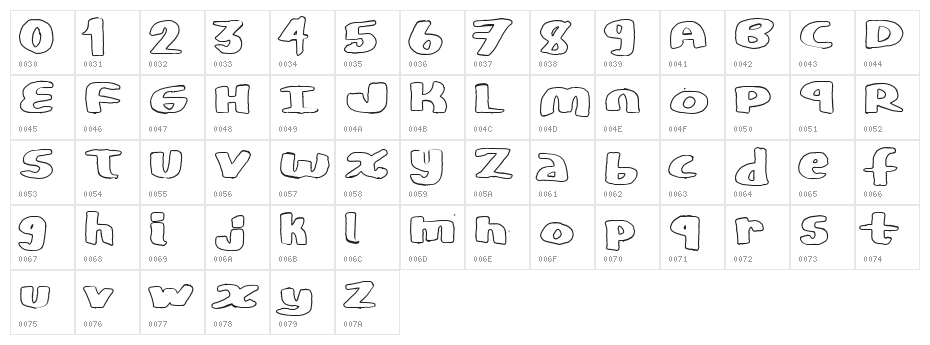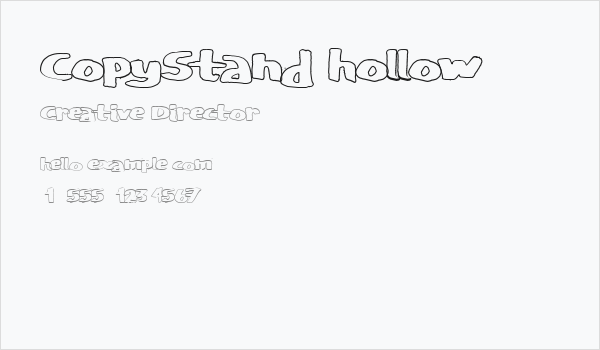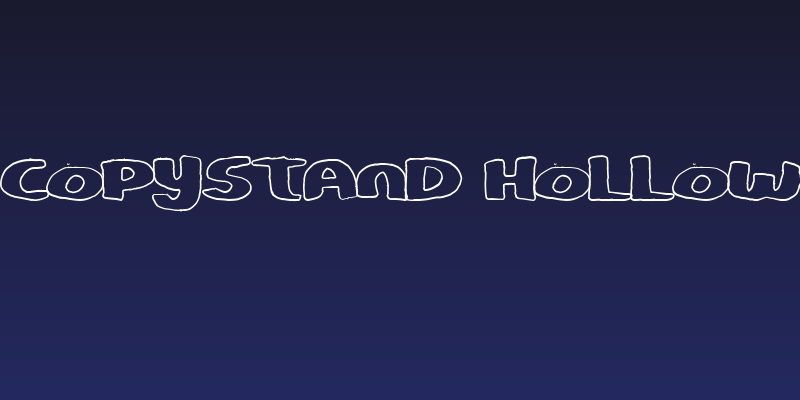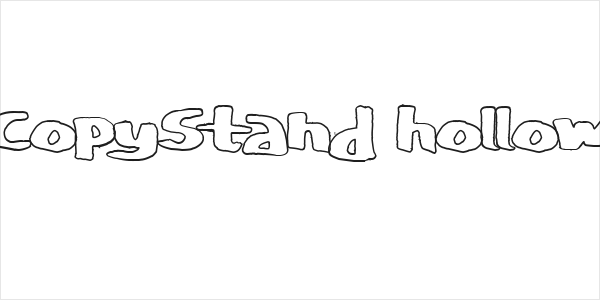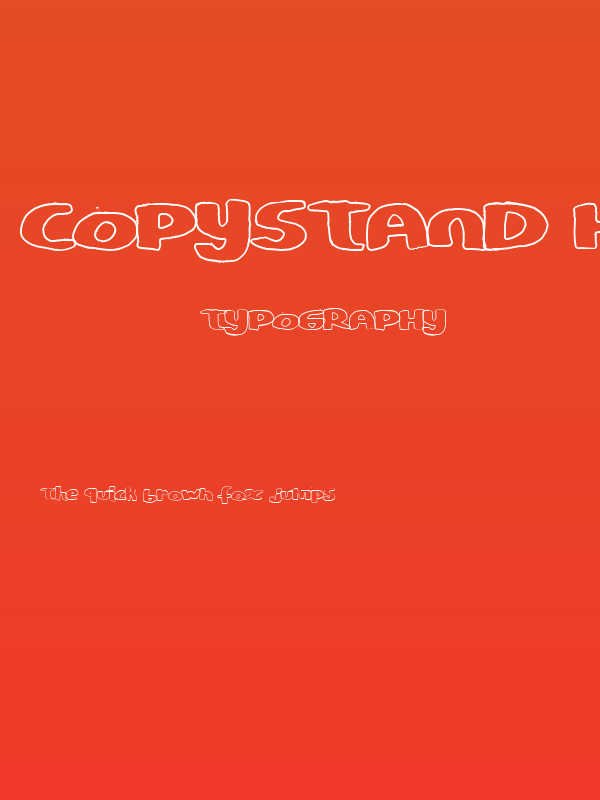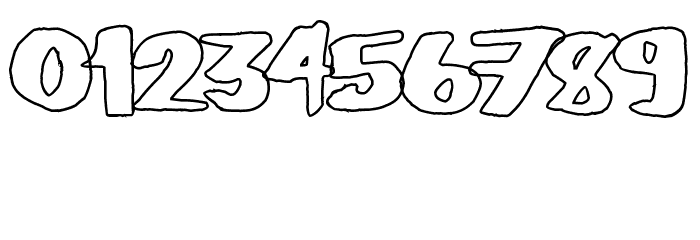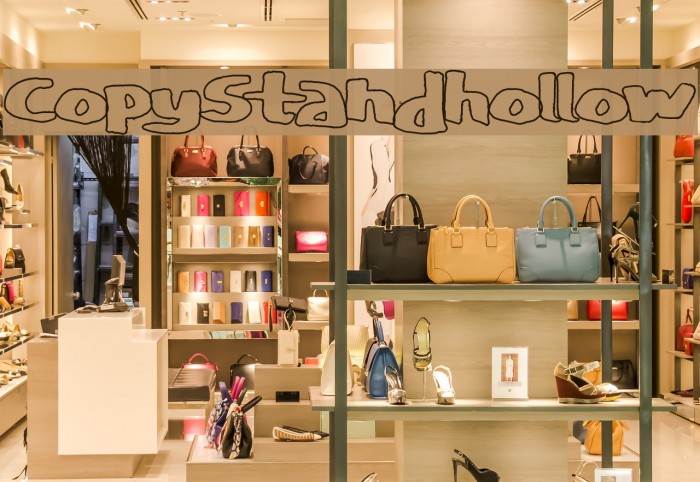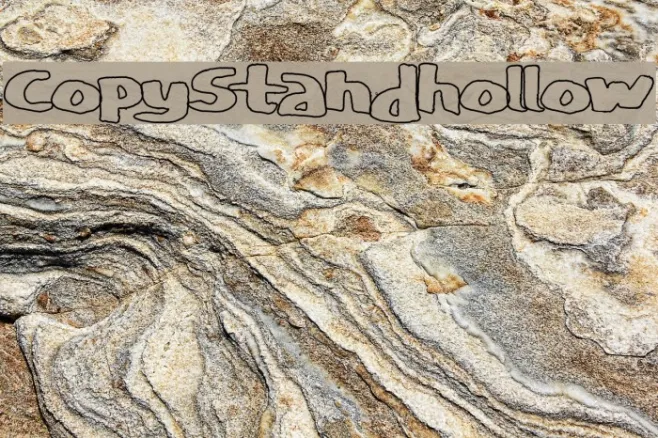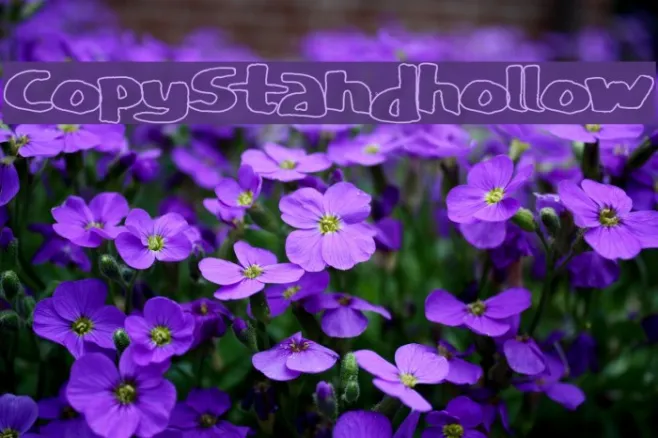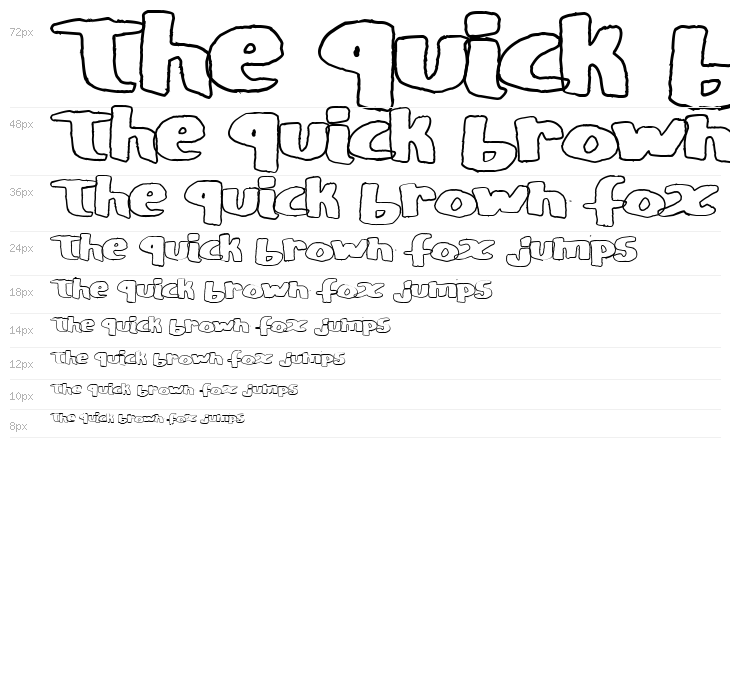
CopyStand hollow Font
CopyStand hollow Description
This font features a playful, hollow design with bold outlines that give it a distinctive, cartoonish appearance. The letters are rounded and slightly irregular, adding a hand-drawn feel to the overall style. The uppercase and lowercase letters maintain a consistent size, while the numbers follow the same whimsical design. The font's hollow nature makes it ideal for creative projects where color or texture can be added within the outlines. Its unique style is both eye-catching and versatile, suitable for a variety of design applications.
| Overall Style | Playful, Cartoonish, Hand-drawn |
| Proposed Projects | Ideal for children's book covers, playful branding, posters, and creative digital designs. |